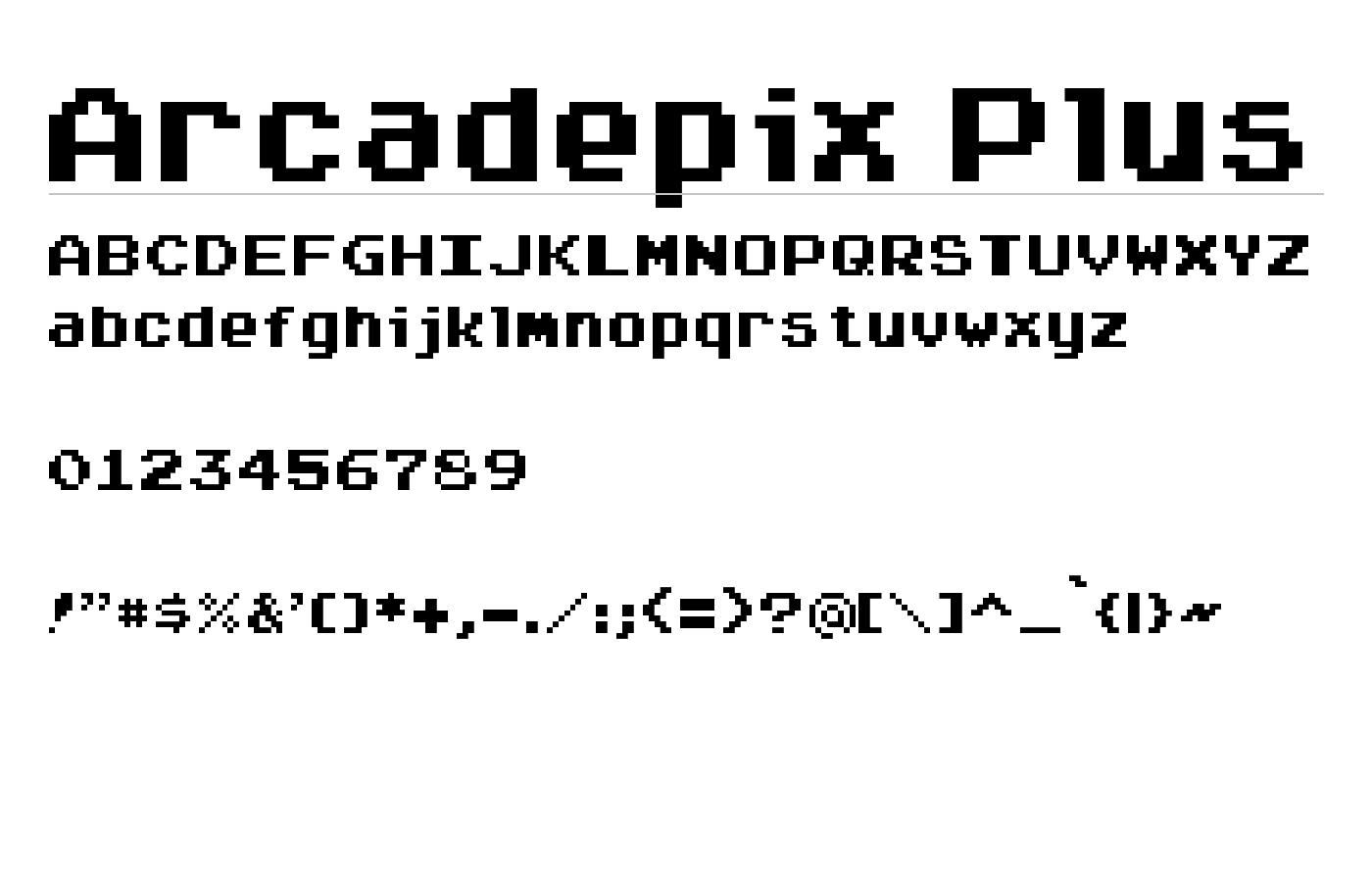
Arcadepix Plus is a pixelated sans serif font that captures a retro, digital gaming vibe with its blocky, monospaced letterforms. Its strong, geometric shapes and uniform stroke weight make it ideal for designs seeking a nostalgic 8-bit or arcade game feel. This font shines in video game graphics, tech-themed projects, and playful digital branding where a bold, vintage pixel aesthetic is desired.
| Languages supported | Latin, Hiragana, Katakana, Cyrillic |
| Designer | LDEJRuff |